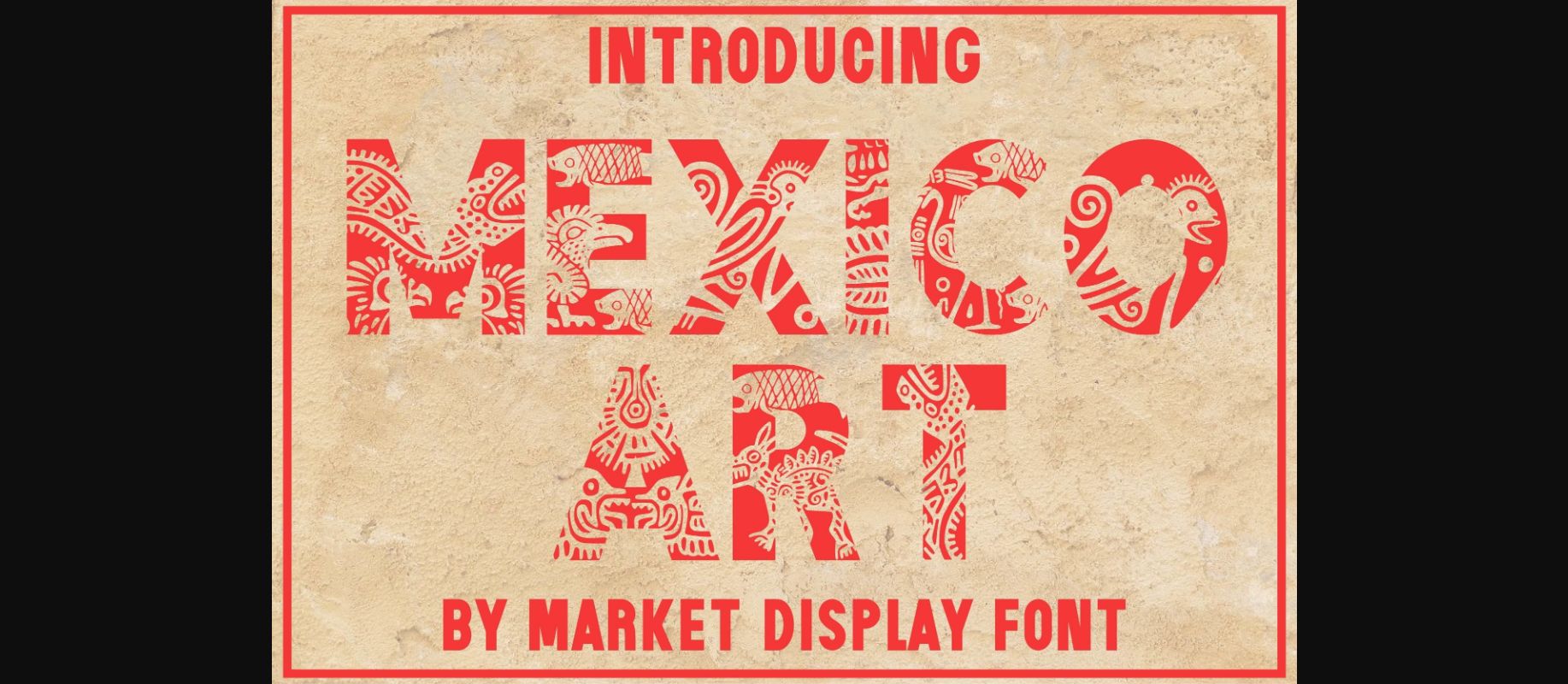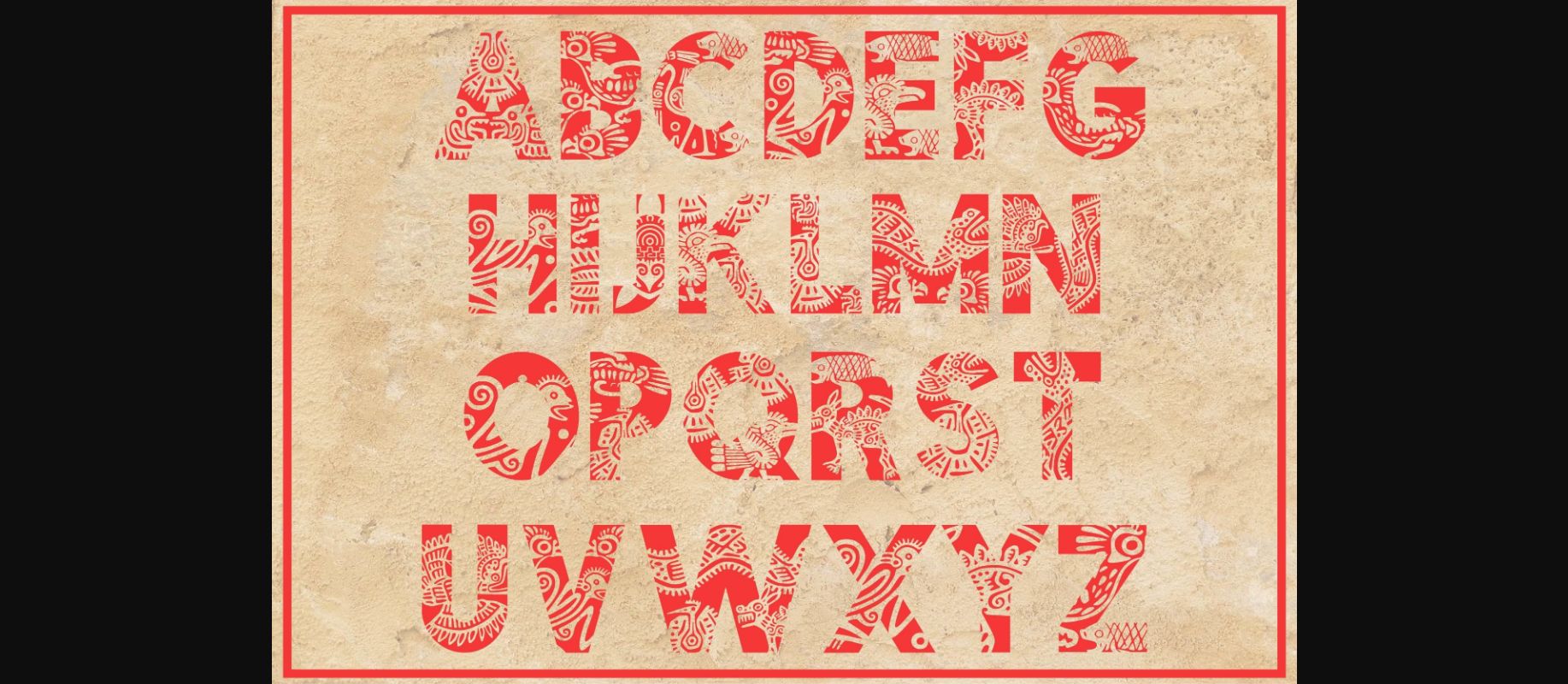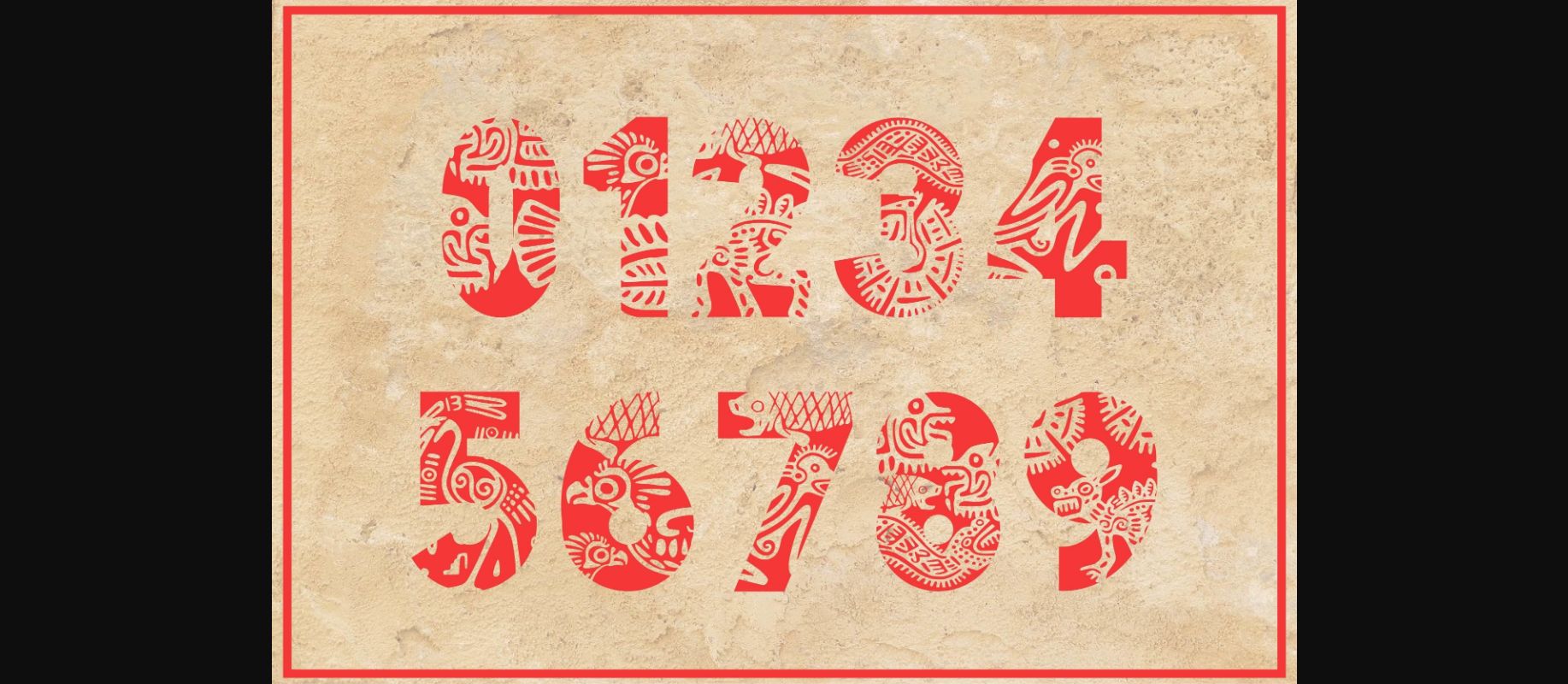
About Mexico Art Font
Mexico Art is a bold and chic decorative font. This original look will appeal to a wide range of crafty ideas, from letterheads and titles to stationery.